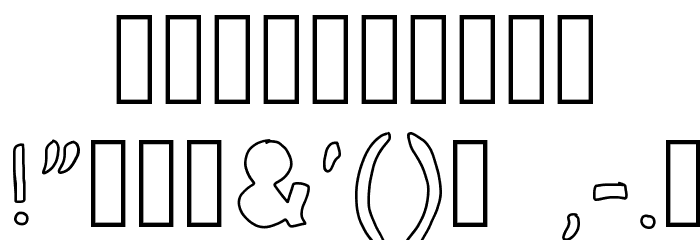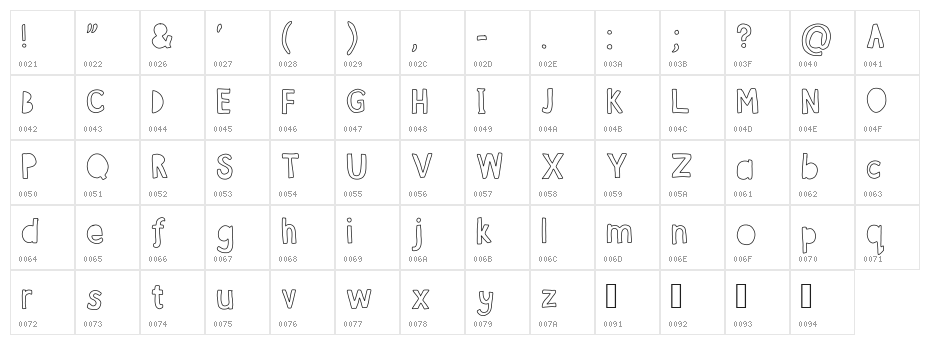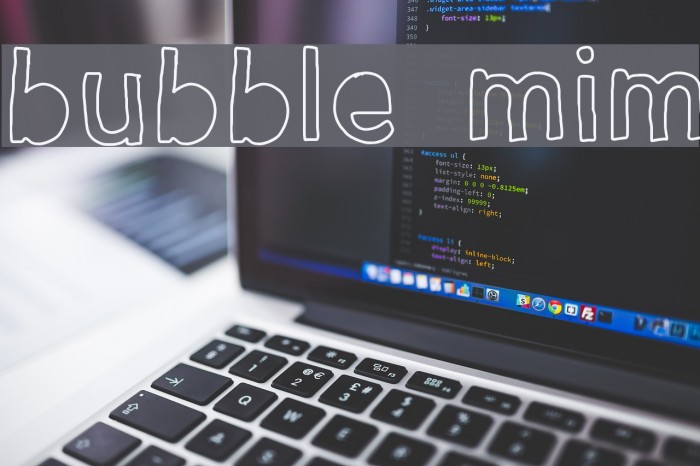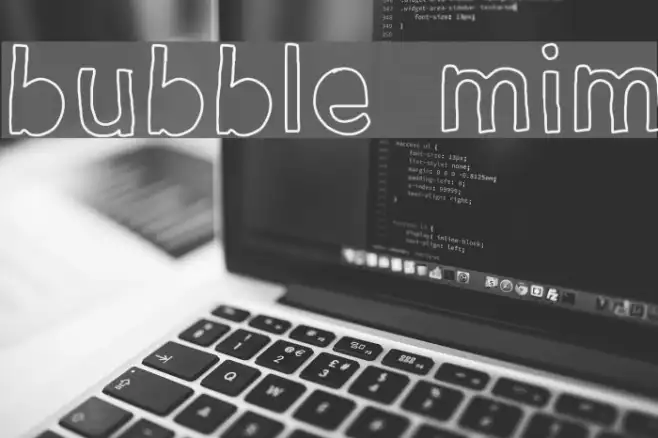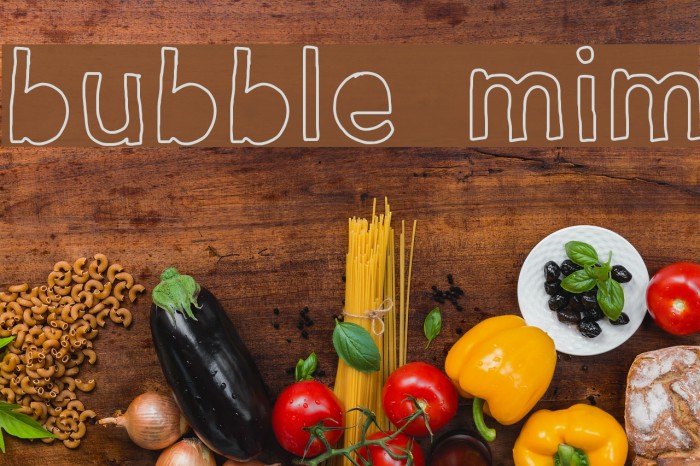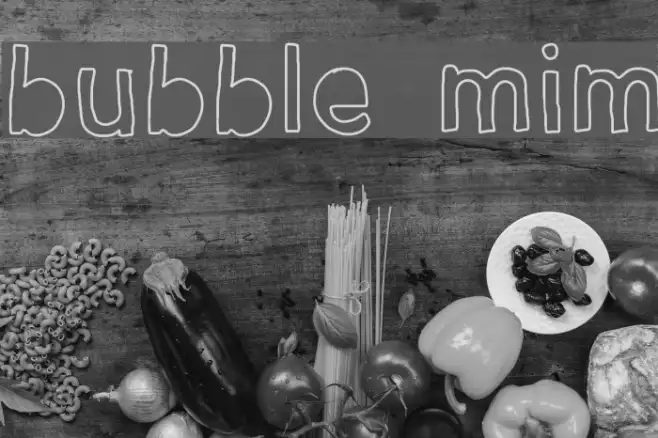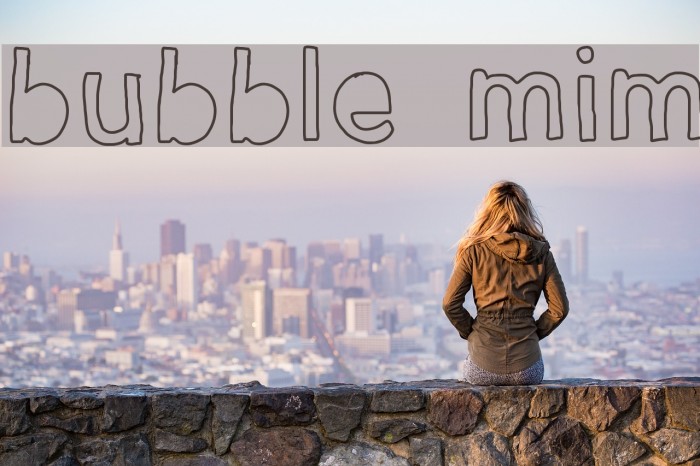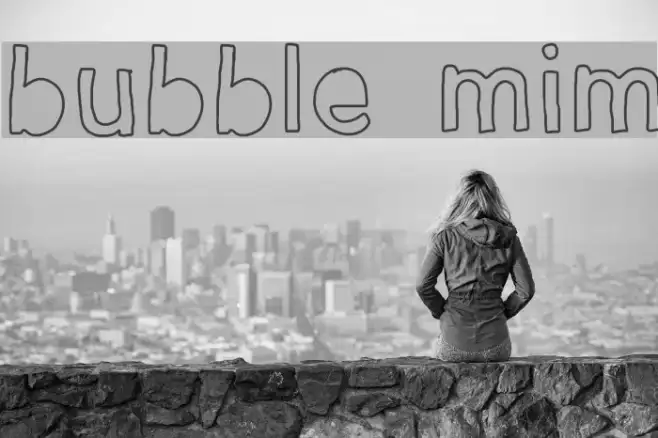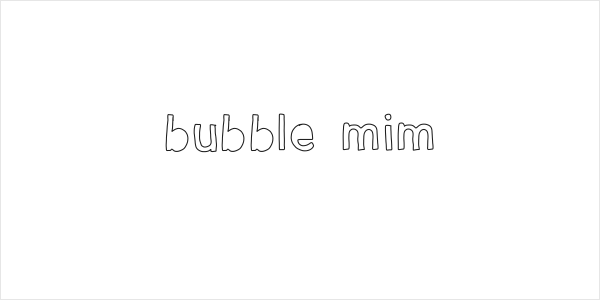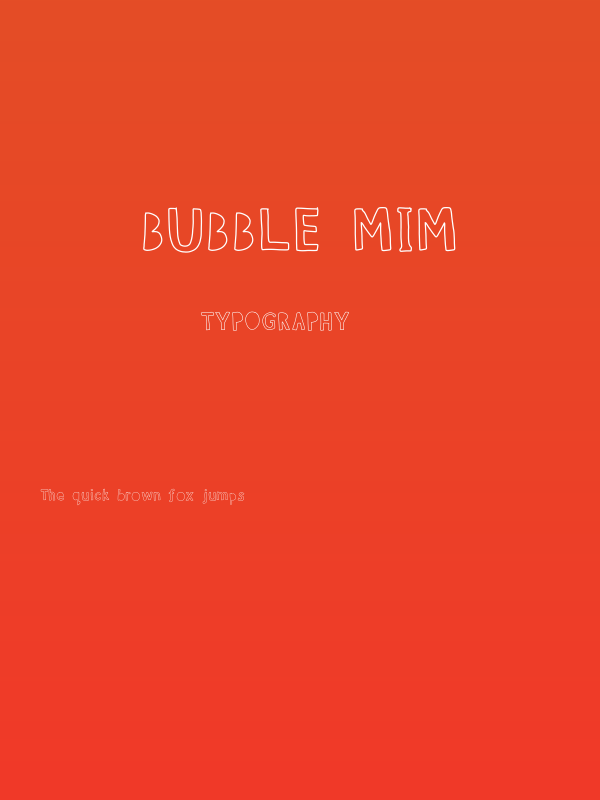
bubble mim Font
bubble mim Description
This playful and whimsical font features a hand-drawn style with a bubbly, outlined appearance. The characters are slightly irregular, giving them a casual and friendly feel. The uppercase and lowercase letters maintain a consistent style, with rounded edges and a slight tilt, adding to the informal aesthetic. The numbers and special characters follow the same design principles, ensuring a cohesive look across all elements. This font is ideal for projects that require a fun and approachable vibe, such as children's books, playful branding, or creative invitations.
| Proposed Projects | Children's books, playful branding, creative invitations. |